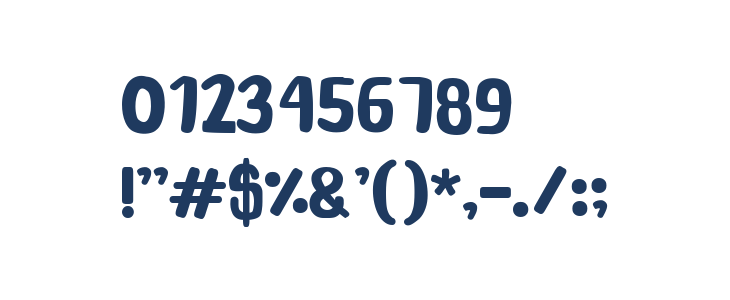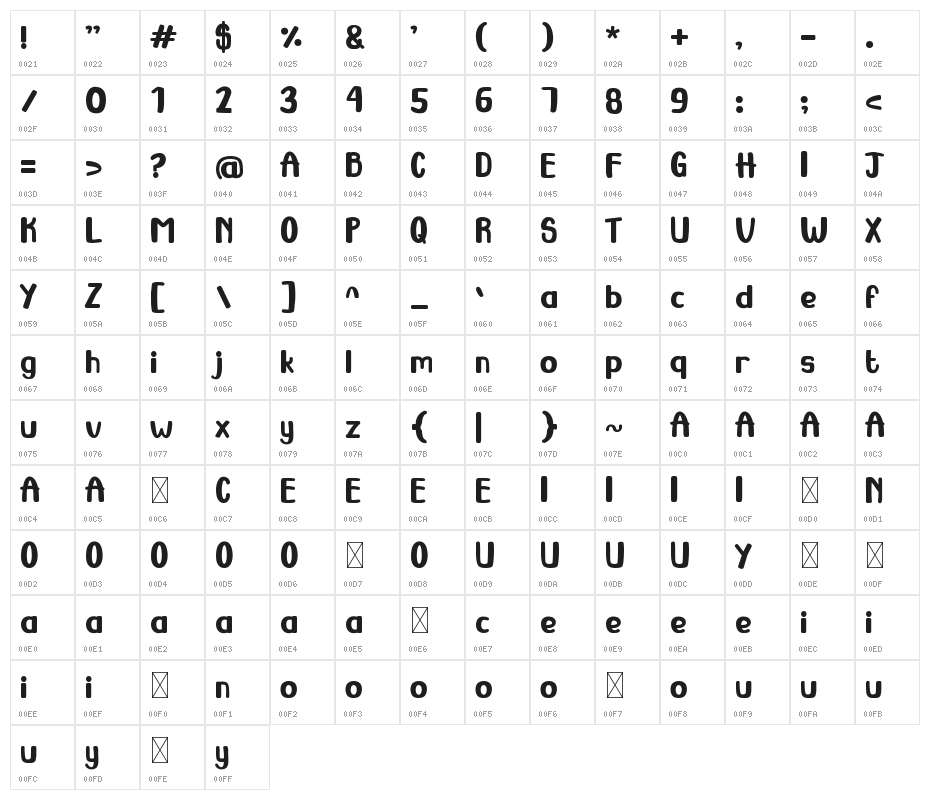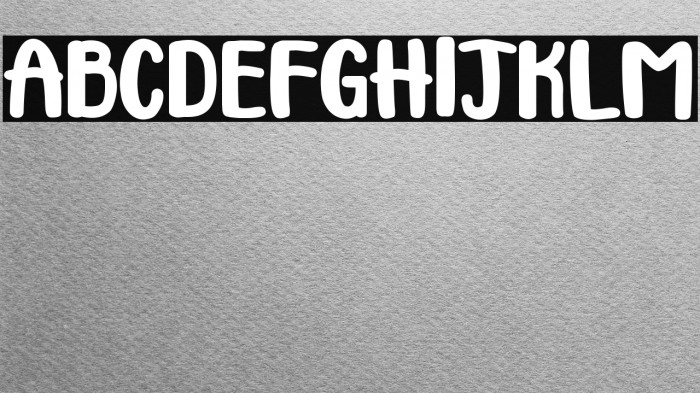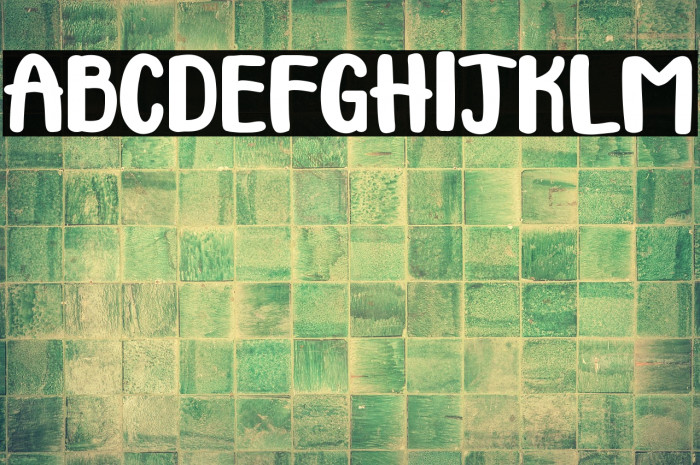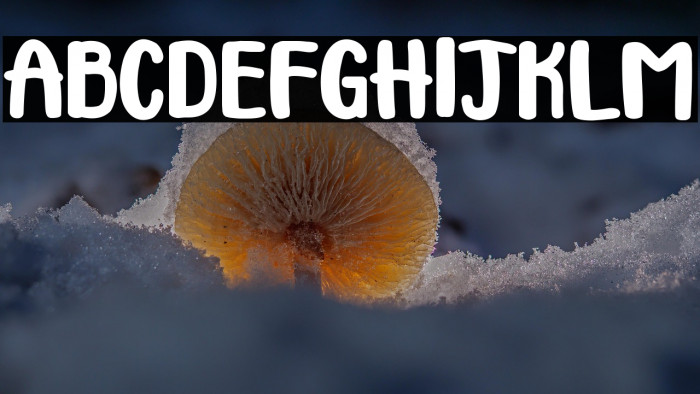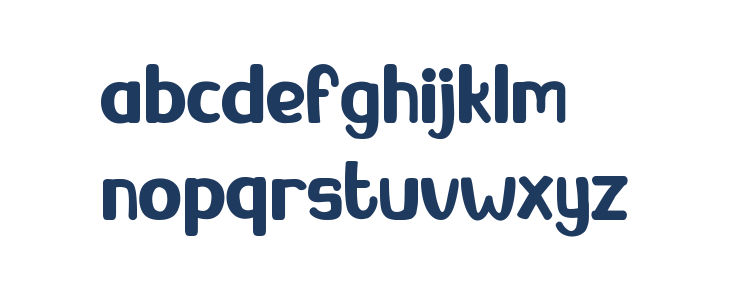
Sandraloka Font
Sandraloka Description
This font features a playful and bold style with rounded edges and a slightly irregular form, giving it a friendly and approachable appearance. The characters are thick and uniform, providing a strong visual impact. The uppercase and lowercase letters maintain a consistent height, while the numerals and special characters blend seamlessly with the overall design. This font's unique characteristics make it suitable for projects that require a touch of whimsy and creativity.
Overall StylePlayful
Proposed ProjectsIdeal for children's books, playful branding, posters, and social media graphics.